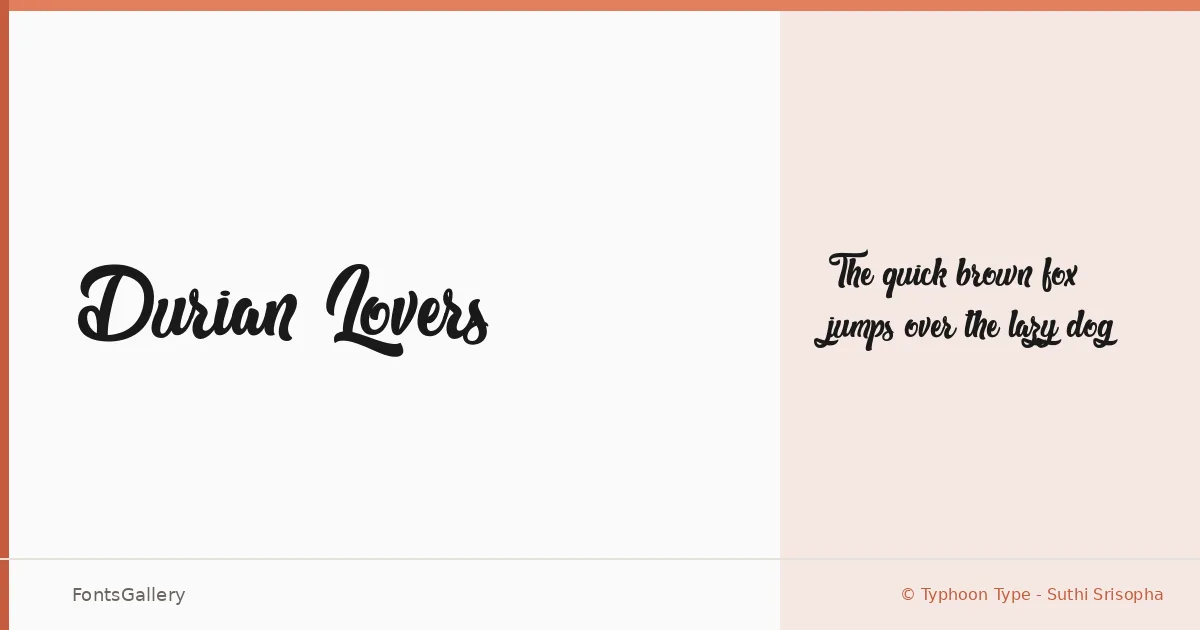
About Durian Lovers Font
There is a particular looseness to this script — the kind that feels handwritten but still composed, as though someone with genuine calligraphic instinct sat down and let the letters breathe. Durian Lovers comes from Typhoon Type, the studio of Suthi Srisopha, and arrives as a single Regular weight in OTF format. The strokes carry that romantic, slightly vintage quality you see in mid-century lettering: confident entry strokes, flowing connections, and a warmth that keeps it from feeling stiff.
This is a classic script with an elegant, romantic character — the kind of face that leans into mood rather than neutrality. The single Regular cut means it does its work through form alone, relying on the personality baked into the letterforms rather than weight contrast across a range of styles. It covers the Latin character set, keeping its scope focused. In use, the rhythm feels unhurried, which suits headline-scale settings far better than running text.
It reads well anywhere a vintage or romantic tone is the point: wedding stationery, branding marks, posters, and social media graphics where a handcrafted headline carries the composition. For pairing, the foundry suggests setting it alongside Canela, Helvetica, ABC Arizona, Abrade, or Anglecia Pro — each offering a different kind of structural counterweight to the script's expressive character.